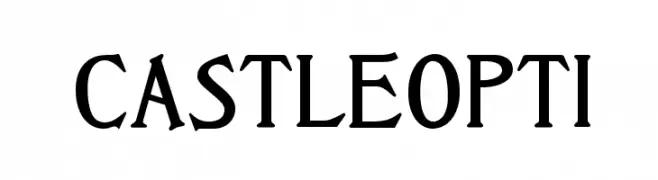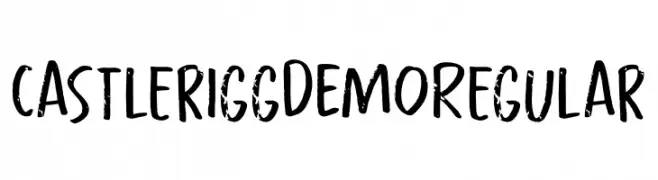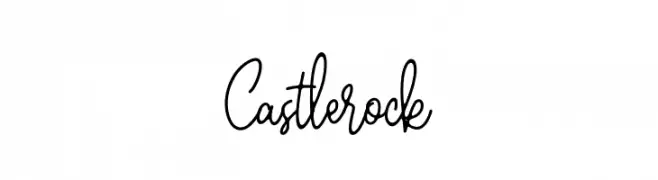
A bold, angular font with a dynamic oblique slant and geometric influence.
A bold, italic font with angular, geometric characters and high contrast.
A bold, angular, and oblique font with a modern, edgy style.
A bold, playful font with rounded edges and a friendly appearance.
A bold, modern sans-serif font with geometric lines and strong presence.
A modern, geometric outline font with a clean and structured appearance.
A playful, hand-drawn font with tall, narrow characters and a whimsical style.
A bold, geometric font with sharp angles and a blocky appearance.
A bold, geometric sans-serif font with a modern and impactful style.
A graceful and sophisticated script font with flowing, connected strokes.
A playful, handwritten font with smooth curves and a casual style.
A bold, military-themed font with star cutouts in each character.
A bold military-themed dingbat font featuring detailed equipment icons.
A bold, stencil-style font with a military and industrial feel.
A bold, stencil-like font with a military-inspired design.
A bold, distressed stencil font with a vintage military aesthetic.
Military-themed dingbat font with vehicle and equipment silhouettes.
A bold, geometric font with a futuristic and technical design.